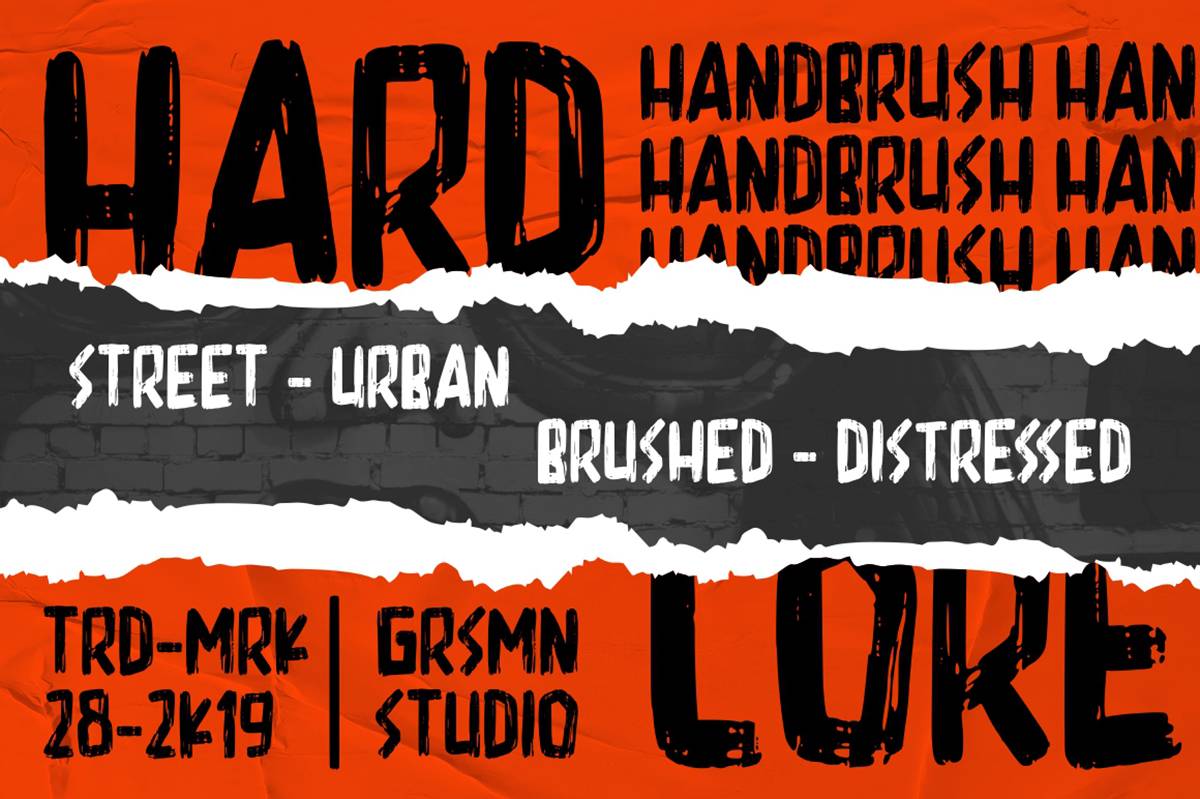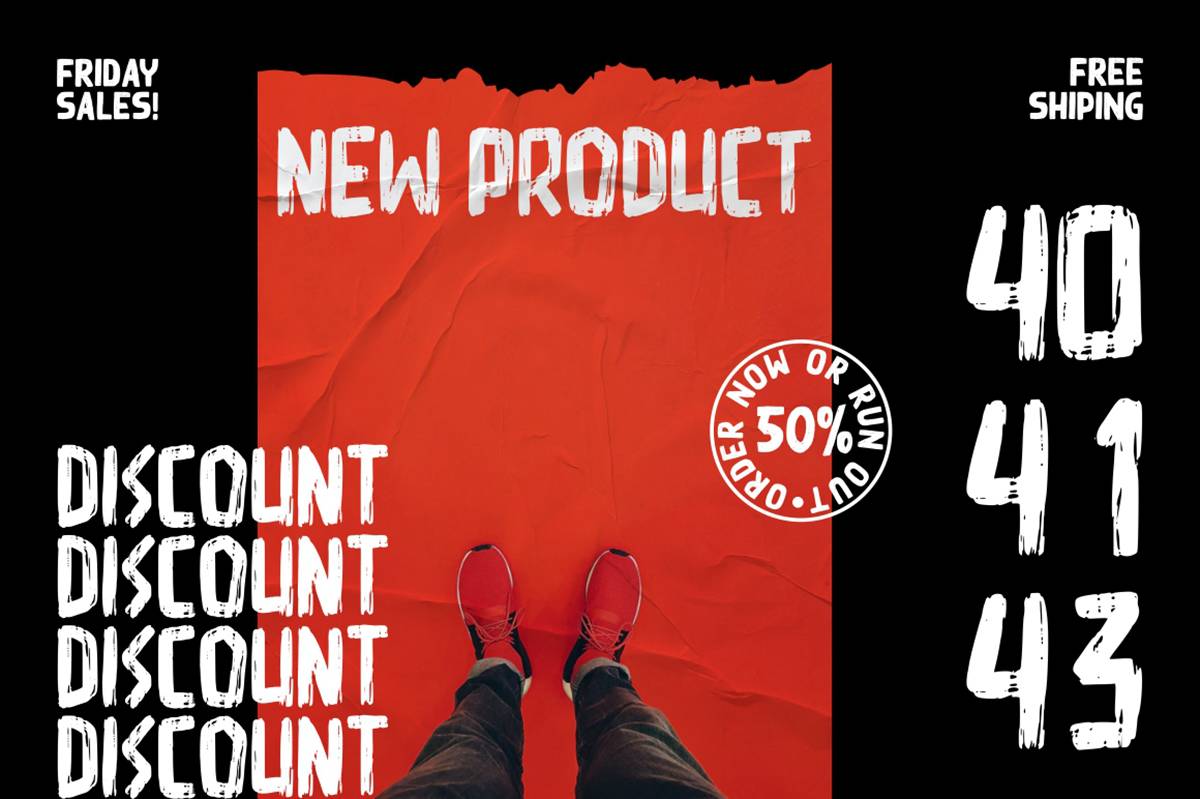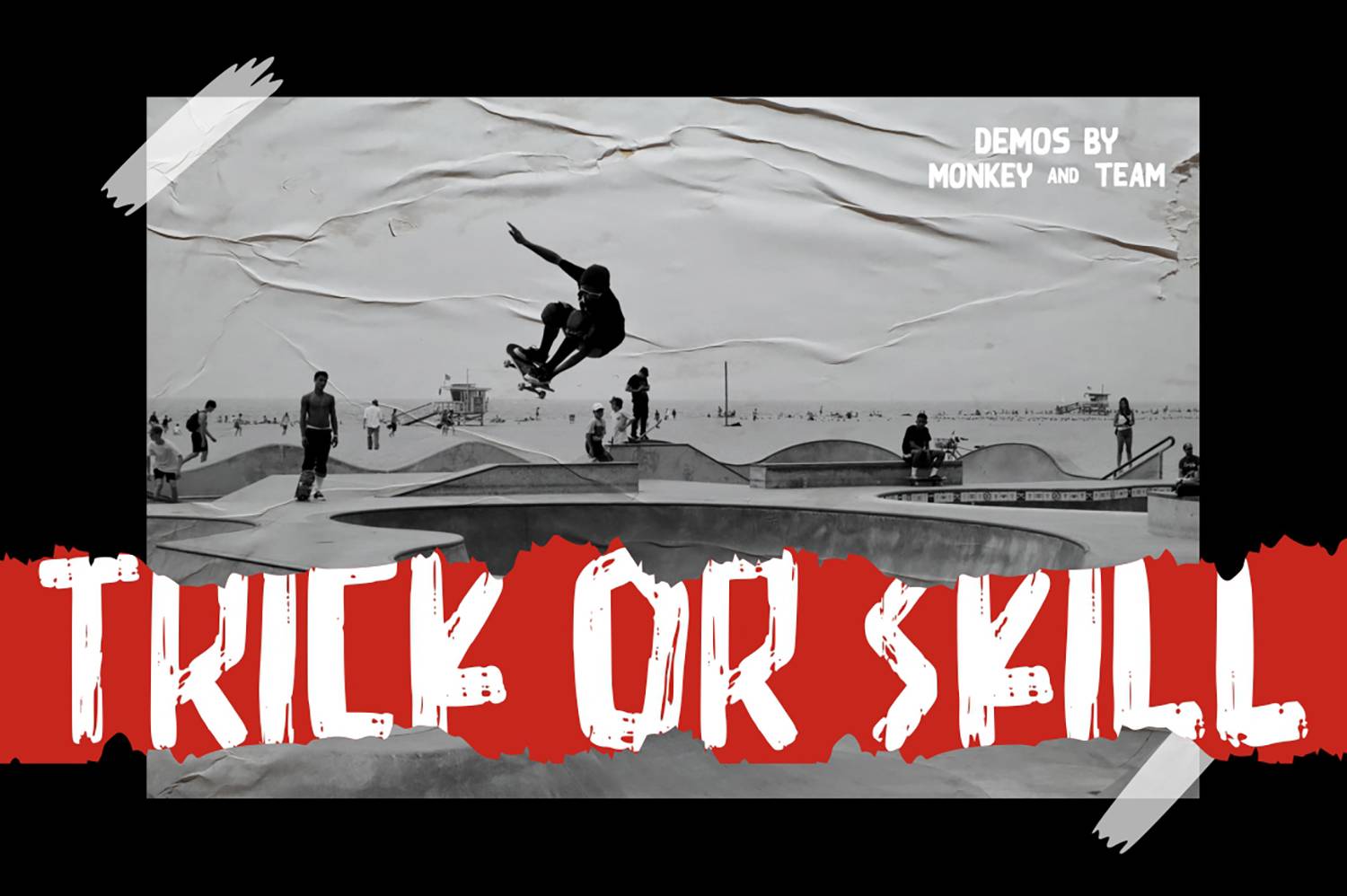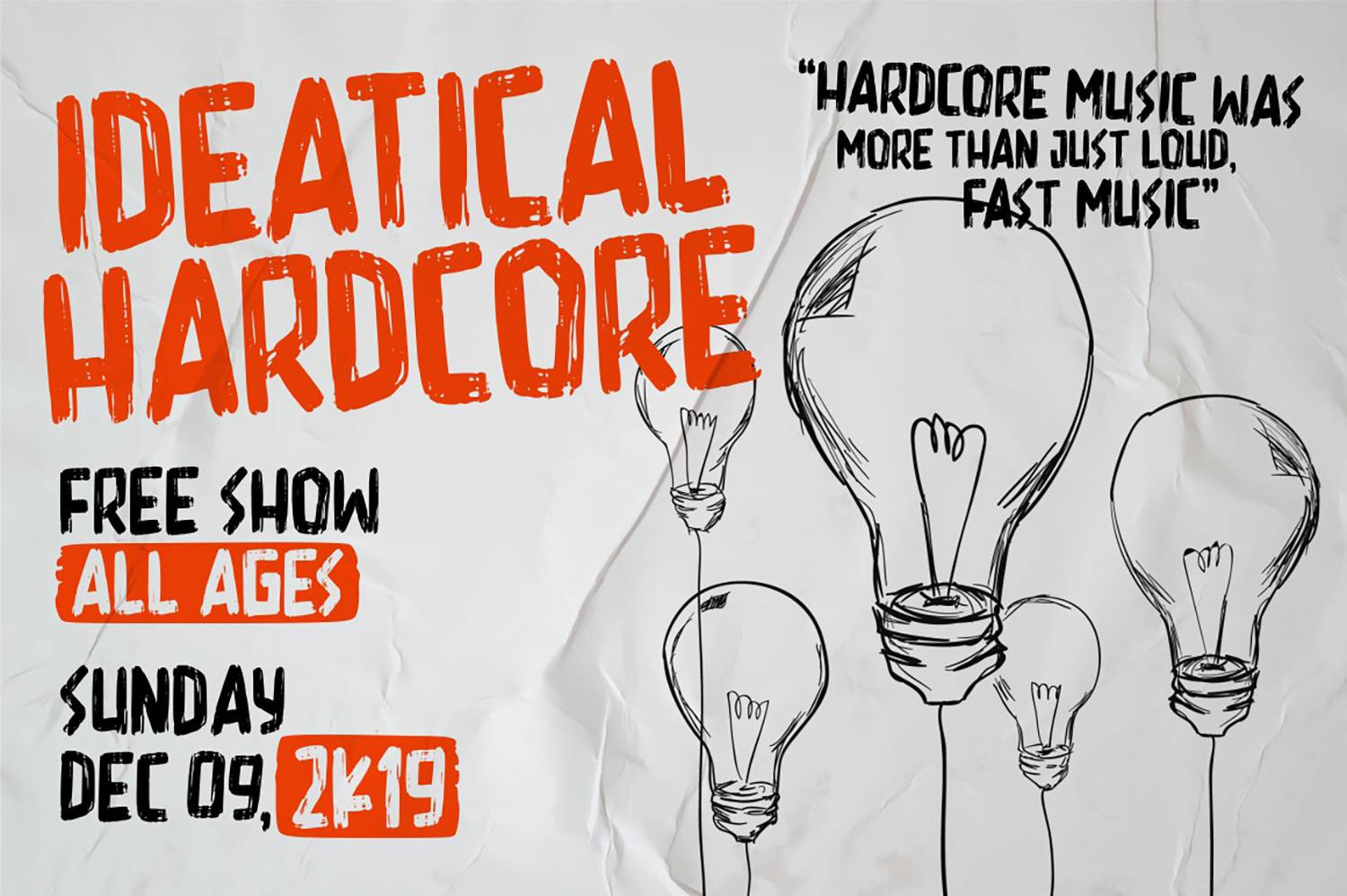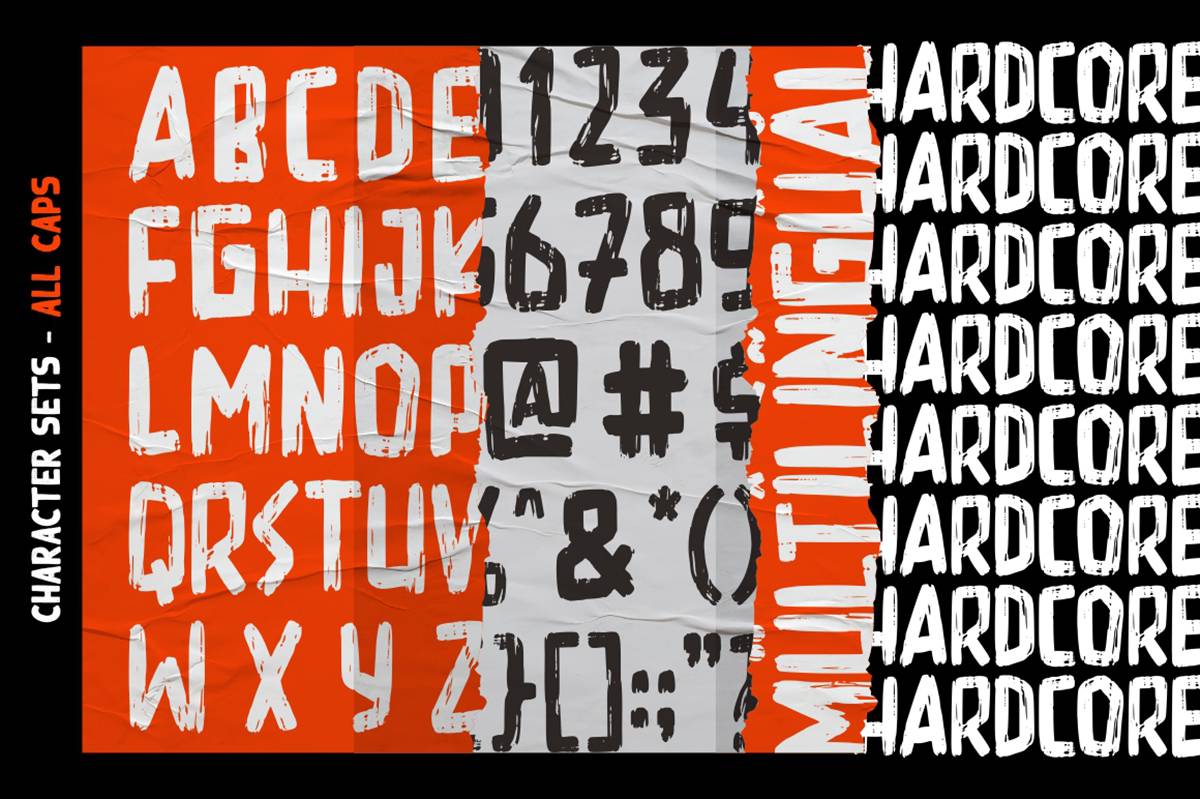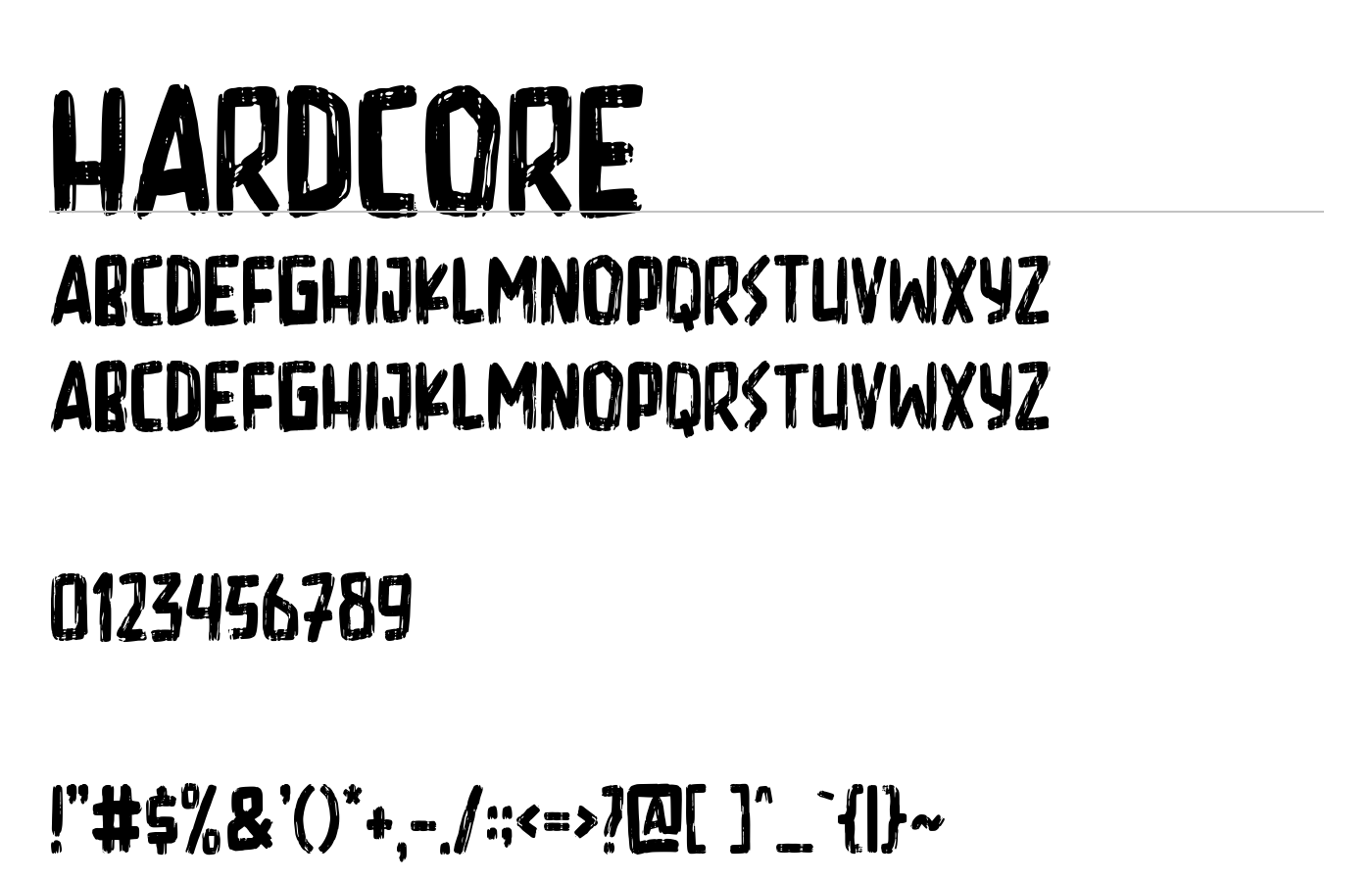
Hardcore Brush is a bold, textured brush-style font with a rough, hand-painted look that gives it a raw and edgy personality. Its uppercase letters feature a sturdy, slightly condensed form with uneven edges and ink splatter details, making it perfect for designs that want to convey energy, rebellion, or creativity. This font works well in posters, logos, and branding where a strong, informal, and impactful statement is needed.
Hardcore Brush Font
About Hardcore Brush Font
| Font family | Hardcore Brush Font |